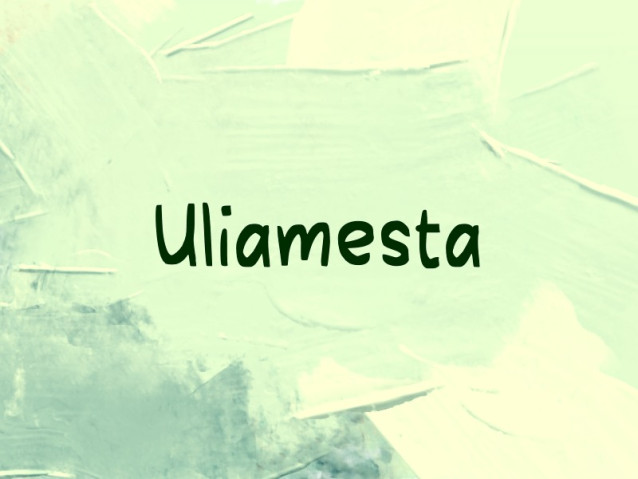
Uliamesta Font
Uliamesta Font is a chunky, comic, and cartoon display font. With its neat and joyful personality, this font will enhance any project you wish to create!